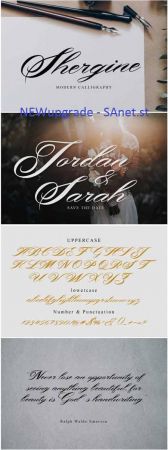
DesignOptimal - Shergine Font
Shergine is an elegant modern calligraphy font that is perfect for many crafting projects. It will add a romantic touch to any design!